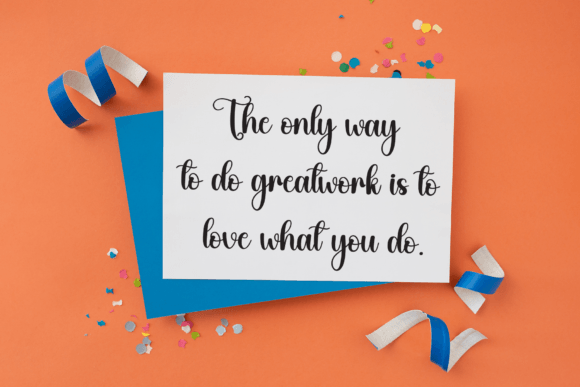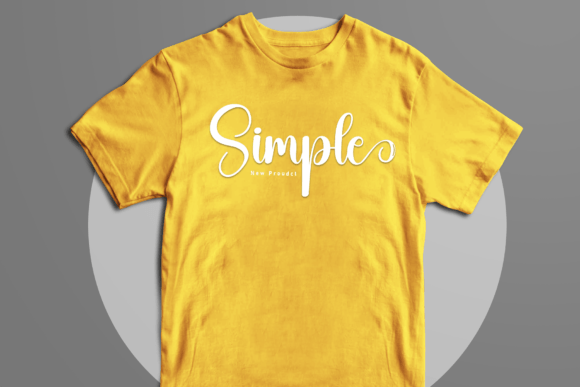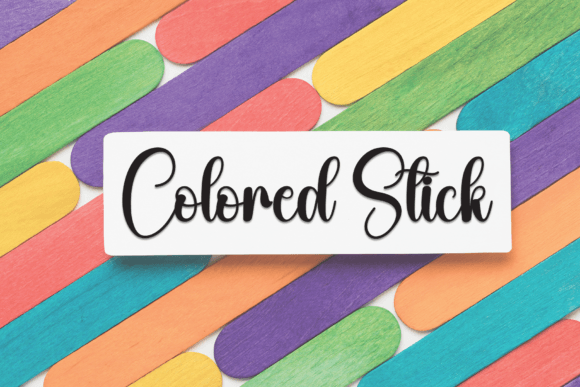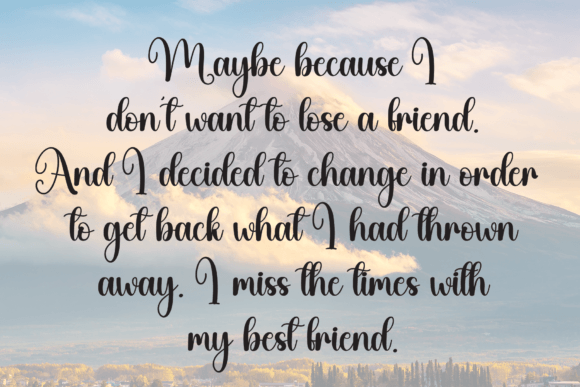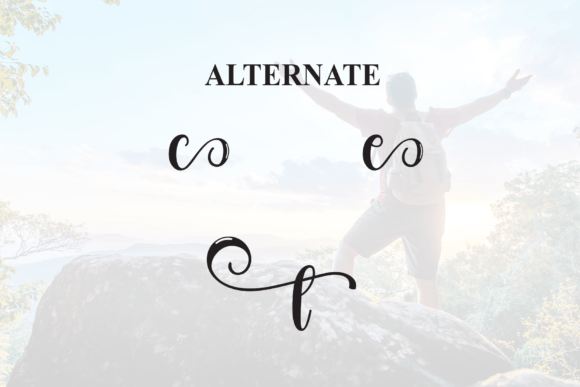
The Adventure Font: Elevate Your Designs with Elegance and Style
Have you ever been in the middle of a design project, and suddenly, you’re stuck on finding the perfect font? I recall a particularly frustrating experience while working on a wedding invitation design. My client wanted something elegant, yet playful, and I was determined to deliver. That’s when I stumbled upon the Adventure Font, and it completely transformed my design.
A Personal Review: What I Love About Adventure Font
The Adventure Font is a stylish and incredibly elegant script font that has become a staple in my design toolkit. Here’s what I love about it:
- ✨ Elegant and Refined: The font exudes sophistication, making it perfect for high-end designs, such as wedding invitations, luxury branding, and upscale marketing materials.
- ✅ Versatile: It looks stunning on various design materials, including thank you cards, quotes, greeting cards, logos, business cards, and more.
- 💫 Handwritten Touch: The font’s handwritten feel adds a personal and warm touch to any design, making it perfect for projects that require a human touch.
While the Adventure Font is an excellent choice for many designs, there are a few minor quirks to consider:
- 🤔 Legibility at Small Sizes: Like many script fonts, Adventure Font can be challenging to read at very small sizes. It’s best used at larger sizes (14pt or higher) to ensure optimal legibility.
- ⚠️ Glyph Limitations: While the font has a wide range of glyphs, some users may find that it lacks certain special characters. However, this is relatively rare, and the font’s standard character set is comprehensive.
The Story Behind Adventure Font
While the true story behind Adventure Font may be unknown, it’s easy to imagine that it was created by a designer who wanted to capture the essence of adventure and freedom. Perhaps they drew inspiration from vintage travel posters, elegant handwriting, and the great outdoors. Whatever the inspiration, the result is a font that embodies a sense of style and sophistication.
| What type of designs is Adventure Font best suited for? | Adventure Font is perfect for designs that require an elegant, handwritten touch, such as wedding invitations, thank you cards, quotes, greeting cards, logos, business cards, and more. |
| Is Adventure Font suitable for body text? | While Adventure Font is beautiful, it’s not ideal for large blocks of body text. Its elegant, cursive style is better suited for headlines, titles, and short paragraphs. |